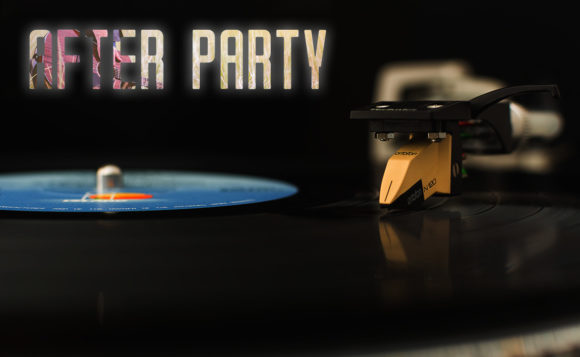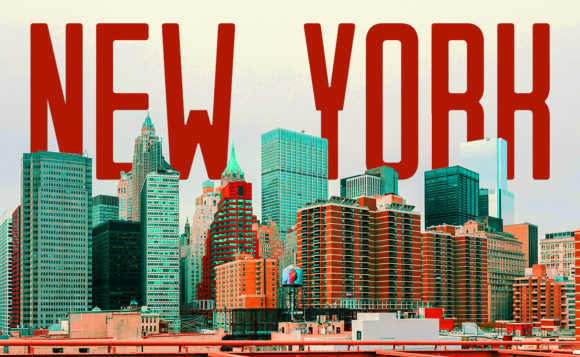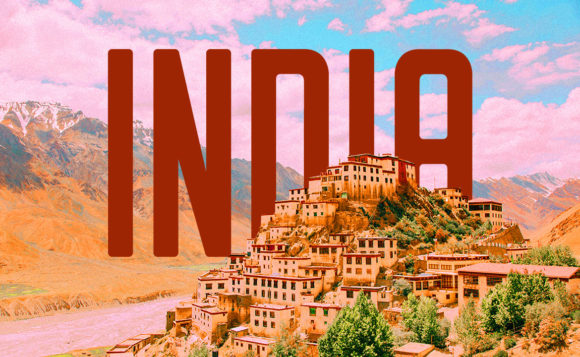
Introduction to Kudu Bakoh Font
| 👤 Author | niankeun |
That’s where the Kudu Bakoh Font comes in – a simple yet sharp display font that’s perfect for making a statement in your designs. Its clean lines and modern aesthetic make it an ideal choice for any creative project, from branding to typography. With its high-quality design and transparent background, you can trust that your work will stand out from the crowd.
Key Features of Kudu Bakoh Font
- Unique, hand-drawn design that adds a creative touch to any project, making it a valuable design resource.
- High-quality font with transparent background, ideal for use in graphics, logos, and other visual elements.
- Perfect for use in various creative projects, such as logos, branding materials, and digital graphics, due to its versatility and unique design.
Honest Review: Kudu Bakoh Font
I recently came across the Kudu Bakoh Font, a design resource that caught my attention due to its unique and quirky aesthetic. As a designer, I appreciate high-quality fonts that can elevate a creative project and give it a personal touch.
Here are some of the things that work well about the Kudu Bakoh Font:
- ✨ Unique and playful design: The font has a distinct character that sets it apart from more traditional fonts.
- ✨ High-quality vector format: The font is available in a high-quality vector format, making it easy to resize and use in a variety of design applications.
- ✨ Transparent background: The font has a transparent background, allowing for easy integration into any design project.
- ⚠️ Limited language support: The font may not support all languages, which could be a limitation for designers working on international projects.
- ⚠️ Not suitable for formal projects: The font’s playful design may not be suitable for formal or professional projects, where a more traditional font may be preferred.
Overall, the Kudu Bakoh Font is a great addition to any designer’s toolkit, offering a unique and high-quality font for creative projects. While it may have some limitations, it’s a valuable resource that’s definitely worth exploring.